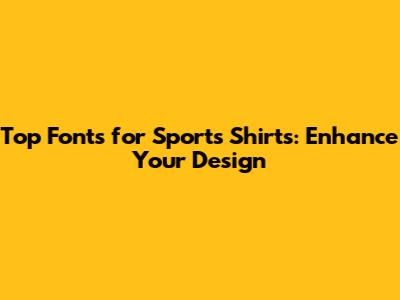
- Helvetica: A timeless and versatile font that works well in almost any context. Its clean lines and balanced proportions make it a safe bet for sports apparel.
- Arial: Similar to Helvetica, Arial is another widely used sans-serif font that offers excellent readability. It’s a great choice for large blocks of text or bold headings.
- Futura: With its geometric shapes and modern aesthetic, Futura is perfect for conveying a sense of speed and innovation. It’s often used in sports branding and advertising.
- Roboto: A popular sans-serif font designed by Google, Roboto offers a friendly and approachable feel while maintaining excellent readability. It’s a great option for creating a welcoming and inclusive vibe.
- Times New Roman: A classic serif font that exudes authority and tradition. While it might not be the first choice for modern sports apparel, it can work well for historical or vintage-themed designs.
- Georgia: Designed for readability on screens, Georgia is a more contemporary serif font that retains a sense of elegance. It can be a good option for adding a touch of sophistication to your sports shirt designs.
- Baskerville: Known for its refined and elegant appearance, Baskerville can bring a touch of class to your sports apparel. It works particularly well for creating a sense of tradition and heritage.
- Brush Script: A bold and dynamic script font that conveys a sense of energy and movement. It can be effective for adding a touch of flair to your sports designs.
- Pacifico: A casual and friendly script font that evokes a sense of warmth and approachability. It’s a good choice for creating a relaxed and informal vibe.
- Lobster: A bold and distinctive script font that demands attention. It can be used effectively for creating eye-catching headlines and logos.
- Impact: A classic display font that’s known for its bold and impactful appearance. It’s a great choice for making a statement and grabbing attention.
- Bebas Neue: A clean and modern display font that’s perfect for creating a sense of sophistication and style. It’s often used in sports advertising and branding.
- ChunkFive: A slab-serif display font that exudes strength and confidence. It’s a good choice for creating a rugged and masculine look.
- Canva: A user-friendly online design tool that’s perfect for creating simple graphics and layouts. It offers a wide variety of fonts and design templates.
Choosing the right fonts for sports shirts is crucial for creating a visually appealing and impactful design. The font you select can significantly influence how your message is received, whether it’s for team uniforms, fan merchandise, or promotional apparel. In this comprehensive guide, we’ll explore various font categories, specific font recommendations, and essential design considerations to help you make the best choice for your sports shirt designs. Let's dive in and ensure your designs hit the mark!
Understanding the Importance of Font Choice
Hey guys, let's talk about why fonts for sports shirts are so important. Think about it – the font is the voice of your design. It communicates the personality and spirit of the team or brand. A strong, bold font can convey power and energy, while a sleek, modern font might suggest speed and agility. The wrong font can make a design look amateurish or confusing, but the right font? It can elevate your entire look, making it pop and resonate with your audience.
First Impressions Matter
In the world of sports apparel, first impressions are everything. When fans see a team's shirt, they instantly form an opinion. A well-chosen font can grab their attention and create a sense of excitement and pride. It’s about more than just readability; it’s about creating an emotional connection. Imagine a basketball team with a delicate, script-like font – it just wouldn’t feel right, would it? The font needs to match the sport and the team's identity.
Readability and Visibility
Of course, readability is also a key factor when considering fonts for sports shirts. The font needs to be clear and easy to read, even from a distance. Think about fans in the stands trying to read the players' names or numbers. If the font is too fancy or intricate, it can be difficult to decipher, which defeats the purpose of having it on the shirt in the first place. Visibility is equally important. The font should stand out against the fabric and any other design elements on the shirt. Contrast is your friend here – a light font on a dark background or vice versa can make a huge difference.
Consistency Across Branding
Finally, consistency is key when it comes to branding. The font you choose for your sports shirts should align with the team's or brand's overall identity. This means using the same font or a complementary font across all marketing materials, including logos, websites, and social media. Consistency helps create a cohesive and professional image, making your brand more recognizable and memorable. So, keep it consistent, folks!
Font Categories and Recommendations
Okay, let's get into the fun part: exploring different font categories and some awesome recommendations for your sports shirts. Knowing the basic types of fonts and their characteristics can help you narrow down your choices and find the perfect fit for your design.
Sans-Serif Fonts
Sans-serif fonts are a classic choice for sports shirts due to their clean, modern, and highly readable appearance. These fonts lack the small decorative strokes (serifs) found in other font types, making them ideal for conveying a sense of simplicity and clarity. They’re particularly effective for team names, player names, and numbers.
Serif Fonts
While serif fonts are generally considered more traditional and formal, they can still be used effectively on sports shirts, especially when aiming for a vintage or classic look. Serif fonts have small decorative strokes at the end of each letter, which can add a touch of elegance and sophistication.
Script Fonts
Script fonts mimic the look of handwriting and can add a personal and artistic touch to your sports shirt designs. However, they should be used sparingly and with caution, as they can sometimes be difficult to read, especially from a distance.
Display Fonts
Display fonts are designed to be attention-grabbing and are often used for headlines, logos, and other prominent design elements. They come in a wide variety of styles, from bold and aggressive to playful and whimsical.
Key Design Considerations
Choosing fonts for sports shirts isn't just about picking a font you like. There are several design considerations to keep in mind to ensure your final product looks professional and effective. Let's run through some of the most important ones.
Contrast and Color
The contrast between the font and the shirt color is crucial for readability. A light font on a dark shirt (or vice versa) will always be easier to read than two similar colors. Consider the color palette of your design and choose a font color that complements it while providing enough contrast. For example, a white font on a navy blue shirt is a classic and highly readable combination.
Font Size and Spacing
The font size needs to be appropriate for the design and the intended audience. A font that's too small will be difficult to read, while a font that's too large can overwhelm the design. Pay attention to the spacing between letters and lines as well. Too little spacing can make the text look cramped, while too much spacing can make it look disjointed. Experiment with different sizes and spacing options until you find a balance that looks good and is easy to read.
Placement on the Shirt
The placement of the font on the shirt can also impact its readability and visual appeal. Consider where the text will be placed – on the front, back, sleeves, or a combination of these. Make sure the font is positioned in a way that complements the overall design and doesn't interfere with any other elements. For example, a team name placed across the chest should be large enough to be easily visible, but not so large that it overwhelms the design.
Target Audience and Sport
Think about your target audience and the sport the shirt is intended for. A font that's appropriate for a children's soccer team might not be suitable for a professional basketball team. Consider the age, gender, and interests of your audience, and choose a font that resonates with them. Also, think about the sport itself. A fast-paced, high-energy sport like basketball might call for a bold, dynamic font, while a more traditional sport like golf might be better suited to a classic serif font.
Licensing and Usage Rights
Finally, always check the licensing and usage rights of the font before using it in your designs. Some fonts are free for personal use but require a commercial license for use in designs that will be sold. Make sure you have the necessary permissions to use the font in your designs to avoid any legal issues down the road. There are plenty of free-for-commercial-use fonts available, so do your research!
Tools and Resources for Font Selection
Alright, so where do you find these awesome fonts for sports shirts, and how can you play around with them before committing to a design? Here are some handy tools and resources to get you started:
Online Font Libraries
Font Pairing Tools
Design Software
In conclusion, selecting the right fonts for sports shirts is a critical aspect of creating effective and appealing designs. By understanding the different font categories, considering key design elements, and utilizing the right tools and resources, you can create sports apparel that not only looks great but also effectively communicates your message. Remember to prioritize readability, contrast, and consistency, and always consider your target audience and the specific sport. Happy designing, and may your fonts always be on point!